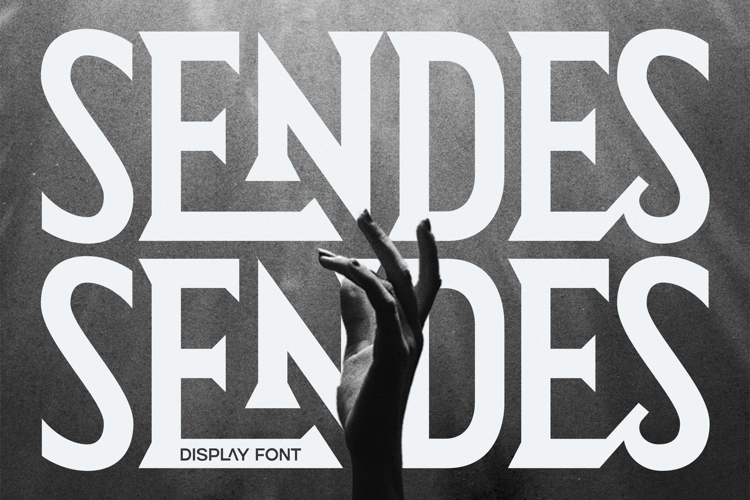
Sendes - Display Serif Font
Sendes
Sendes is a display serif font. With its bold lines and sharp in every edges making it feel strong and elegant in the same time. This font suitable for  This font can be used in any various project design like posters, cover albums, banners, magazines, logos, headlines and many more. It seamlessly blends modernity with vintage style touch. Sendes has any features like punctuation mark, multilingual supports, alternate and ligature characters that can stylize your project design.